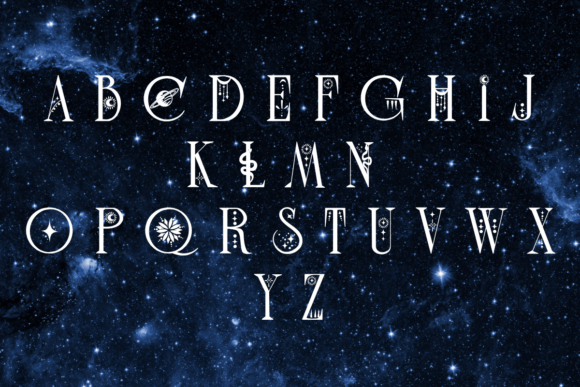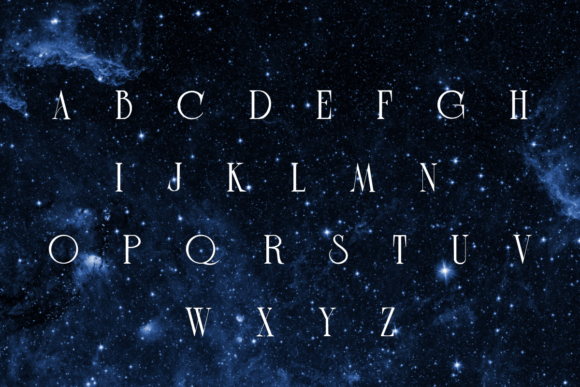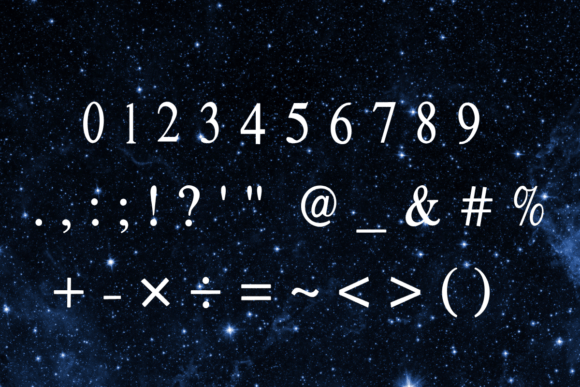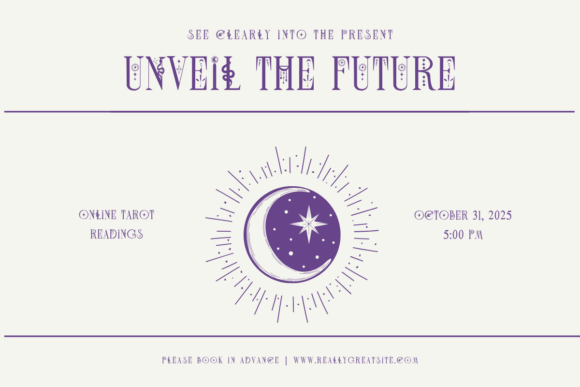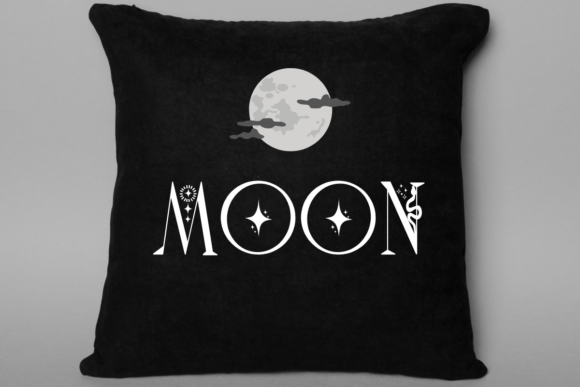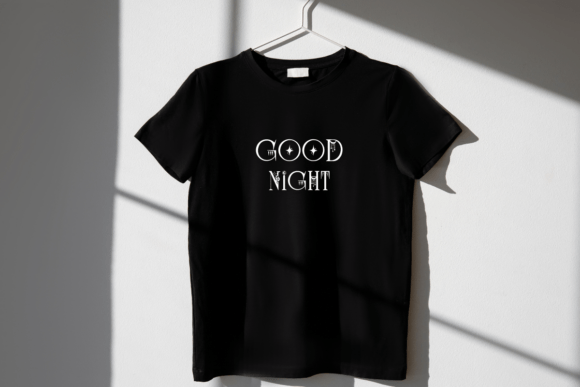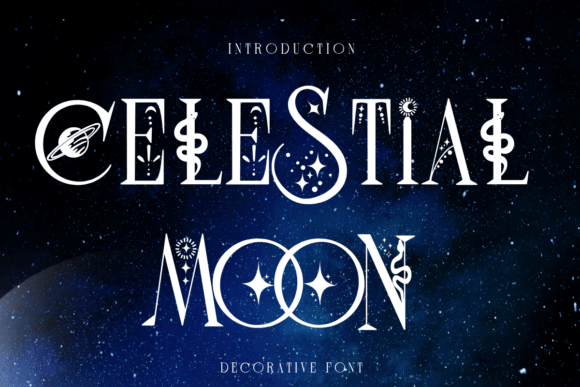
Celestial Moon Font: A Heavenly Decorative Font for Creative Projects
Are you a designer, crafter, or writer looking for a unique and captivating font to elevate your creative projects? Look no further than the Celestial Moon Font, a beautiful decorative font that is sure to add a touch of magic to your designs. In this article, we’ll explore the features and uses of this lovely font, and provide you with inspiration for incorporating it into your work.
What is Celestial Moon Font?
Celestial Moon Font is a decorative font designed to evoke the wonder and enchantment of the night sky. Its elegant and dreamy curves make it perfect for a variety of creative projects, from personal to professional. Whether you’re taking notes, writing a diary, or creating greeting cards, this font is sure to add a touch of whimsy and charm.
Uses for Celestial Moon Font
While Celestial Moon Font is perfect for writing and note-taking, its uses extend far beyond. Here are some ideas to get you started:
- Stationery and Journaling: Add a touch of elegance to your journals, notebooks, and stationery with Celestial Moon Font.
- Greeting Cards: Create beautiful and unique greeting cards for special occasions, such as birthdays, weddings, and holidays.
- Banners and Signs: Use Celestial Moon Font to create eye-catching banners and signs for parties, events, and promotions.
- Mugs and Water Bottles: Add a personal touch to your mugs and water bottles with custom designs featuring Celestial Moon Font.
- T-Shirts and Apparel: Create stylish and unique apparel with Celestial Moon Font, perfect for fashion enthusiasts and bloggers.
- Social Media Posts: Elevate your social media posts with beautiful graphics and quotes featuring Celestial Moon Font.
- Content Creation: Use Celestial Moon Font to add a touch of elegance to your blog posts, articles, and other content.
Why Choose Celestial Moon Font?
So why choose Celestial Moon Font over other decorative fonts? Here are just a few reasons:
- Unique and Eye-Catching: Celestial Moon Font is a one-of-a-kind font that is sure to grab attention and add a touch of personality to your designs.
- Versatile: This font is perfect for a wide range of creative projects, from personal to professional.
- Elegant and Whimsical: Celestial Moon Font combines elegance and whimsy, making it perfect for designers and crafters who want to add a touch of magic to their work.
Tips for Using Celestial Moon Font
Here are some tips for getting the most out of Celestial Moon Font:
- Experiment with Colors: Pair Celestial Moon Font with a range of colors to create unique and eye-catching designs.
- Mix and Match Fonts: Combine Celestial Moon Font with other fonts to create visually interesting and dynamic designs.
- Use it for Headings and Titles: Celestial Moon Font is perfect for headings and titles, adding a touch of elegance and sophistication to your designs.
Celestial Moon Font is a beautiful and versatile decorative font that is perfect for designers, crafters, and writers. With its elegant and whimsical curves, it’s sure to add a touch of magic to your creative projects. Whether you’re creating stationery, greeting cards, banners, or social media posts, Celestial Moon Font is the perfect choice. So why not give it a try and see the difference it can make in your designs?